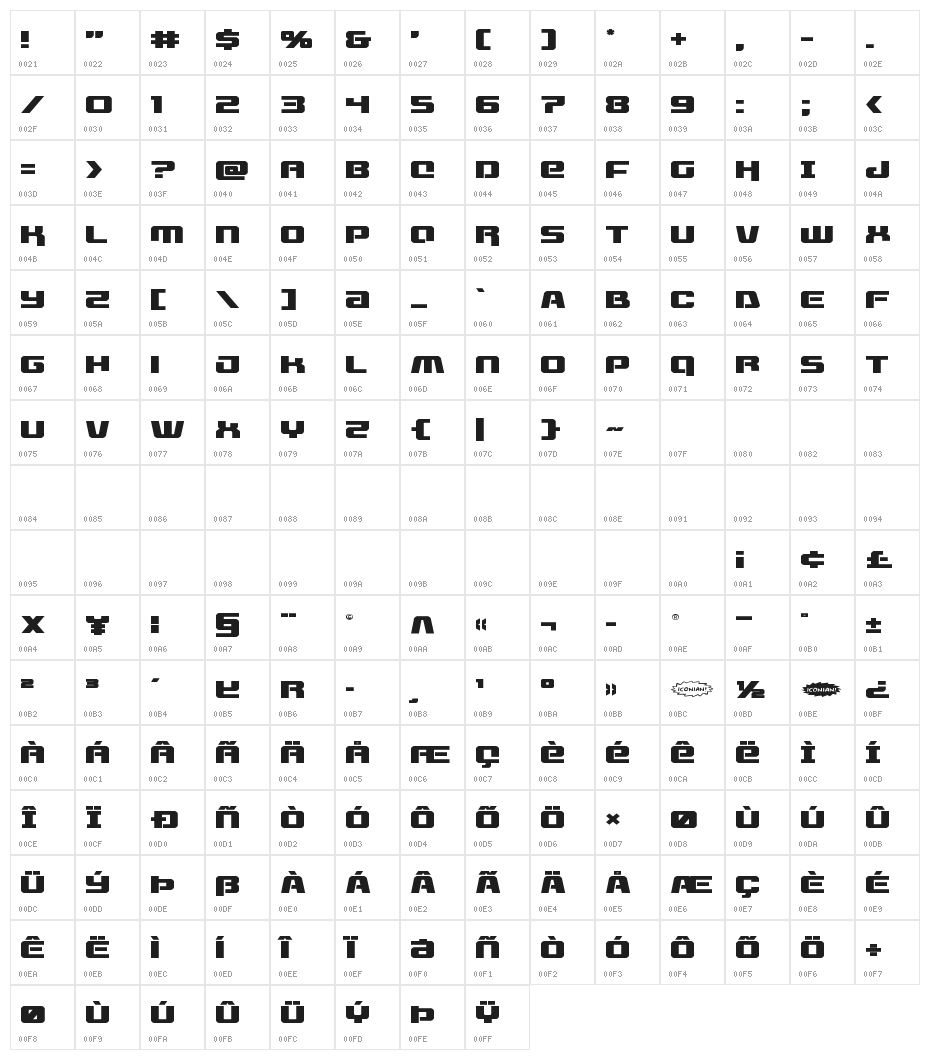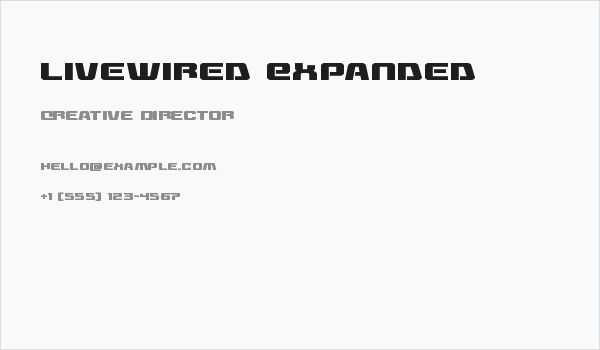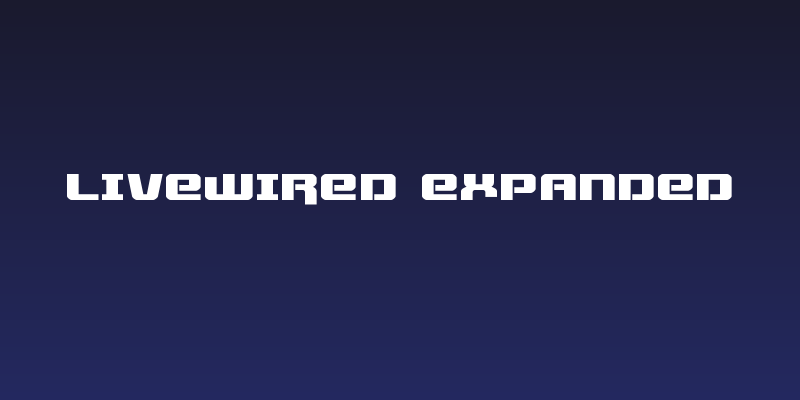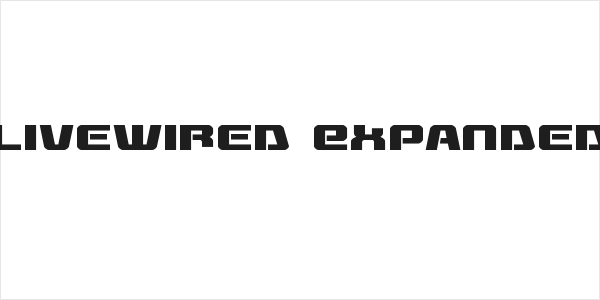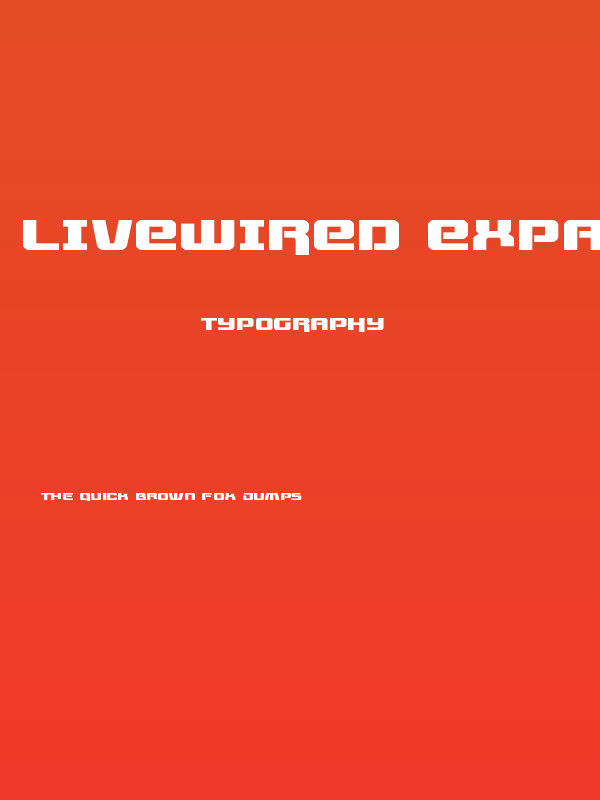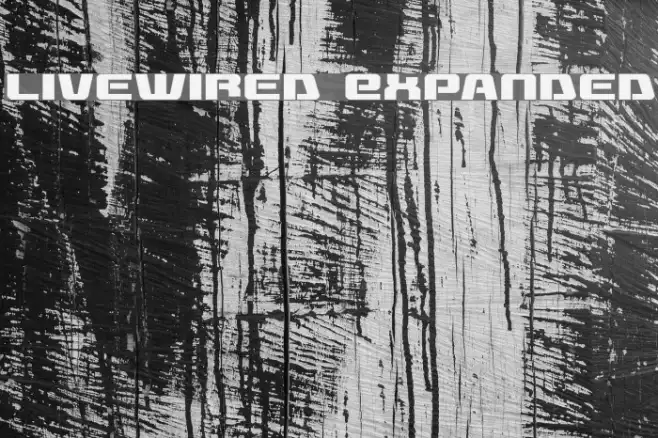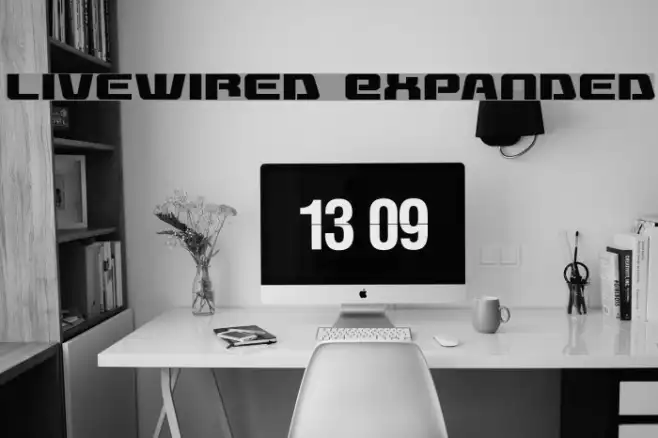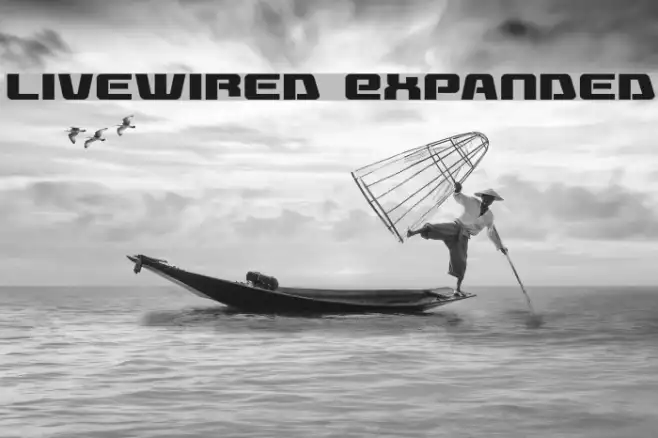
Livewired Expanded Font
Livewired Expanded Description
This font features a bold and futuristic design with a strong geometric structure. The characters are wide and blocky, with a consistent thickness throughout, giving it a powerful and modern appearance. The uppercase and lowercase letters maintain a uniform style, with sharp angles and clean lines that enhance its digital aesthetic. The numbers and special characters follow the same design principles, ensuring a cohesive look across all elements. This font's expanded width and bold weight make it stand out, ideal for projects that require a striking and impactful visual presence.
| Proposed Projects | Ideal for technology branding, sci-fi posters, video game titles, and digital interfaces. |